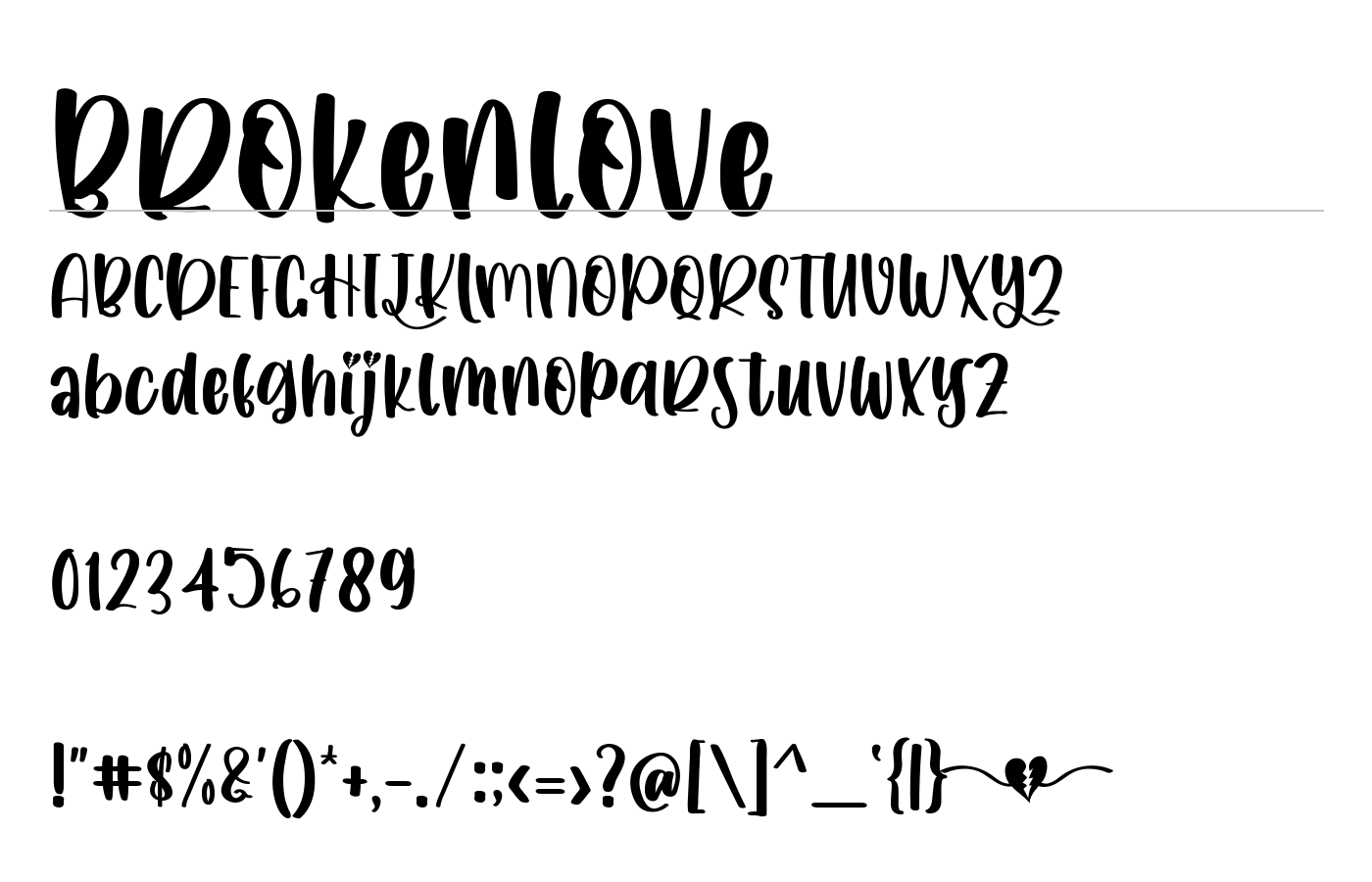
Brokenlove is a playful and whimsical script font with bold, rounded strokes and a hand-drawn feel, featuring charming flourishes and quirky character shapes. It’s perfect for creative, casual designs like greeting cards, posters, and branding that aim to evoke a sense of fun and personality. Its friendly yet distinctive style makes it ideal for projects seeking a warm, artistic touch.
Brokenlove Font
About Brokenlove Font